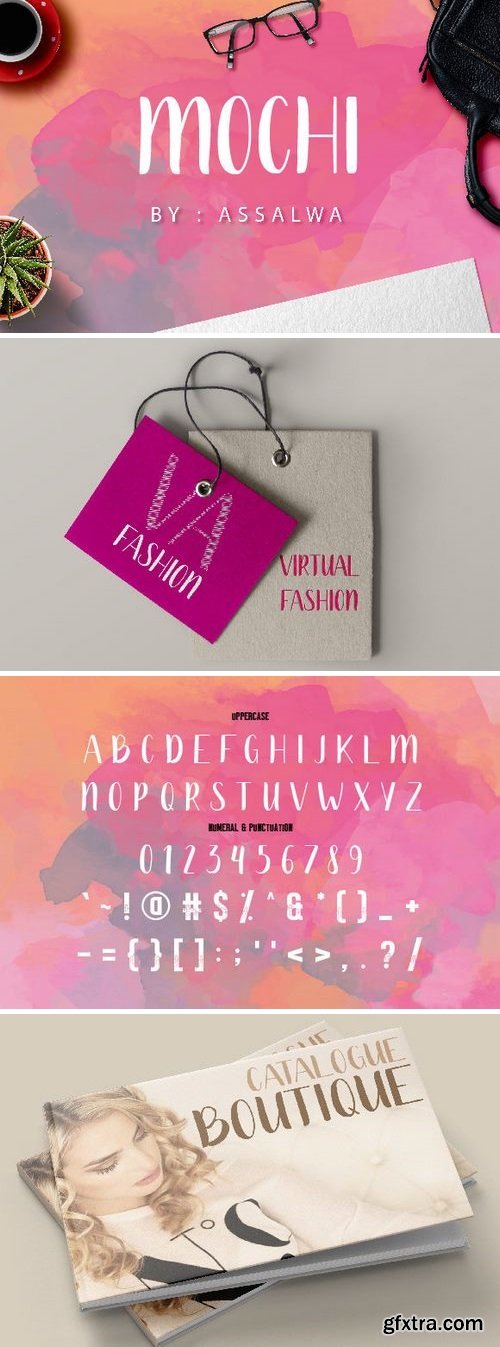
Mochi Font
The Mochi is a beautiful handcrafted typeface. It has a fun and stylish feel which can be used for holiday and travel designs, headings, cards, logos, wedding invitations, t-shirts, and much more!